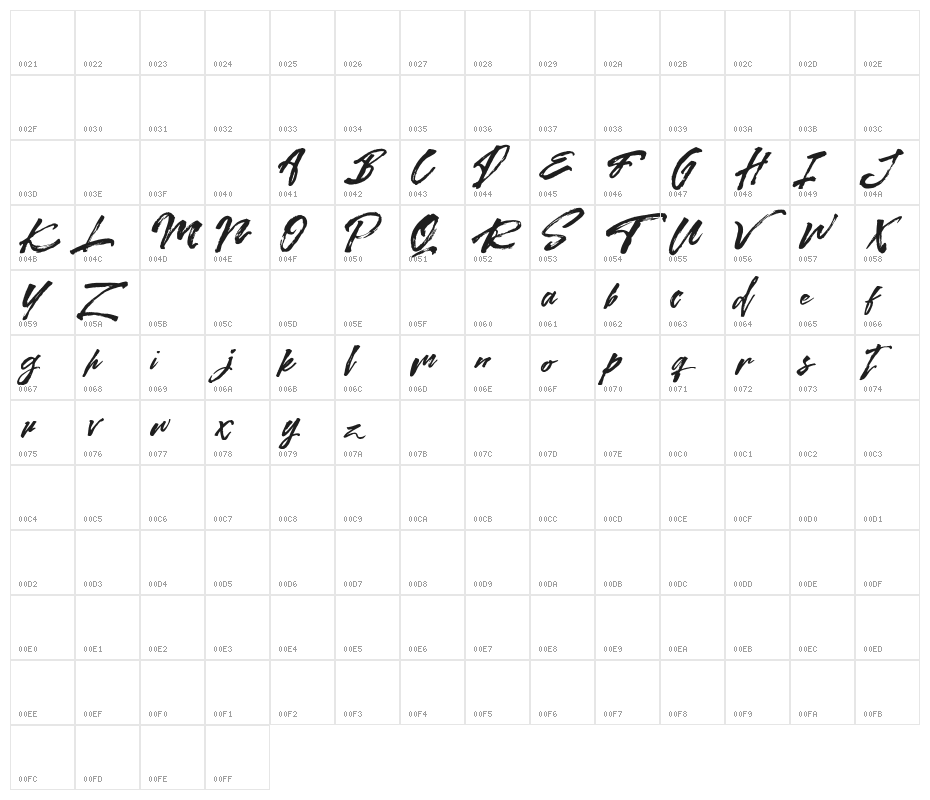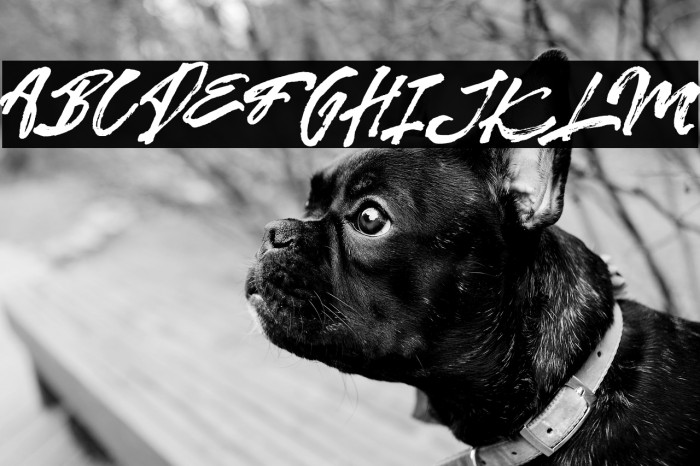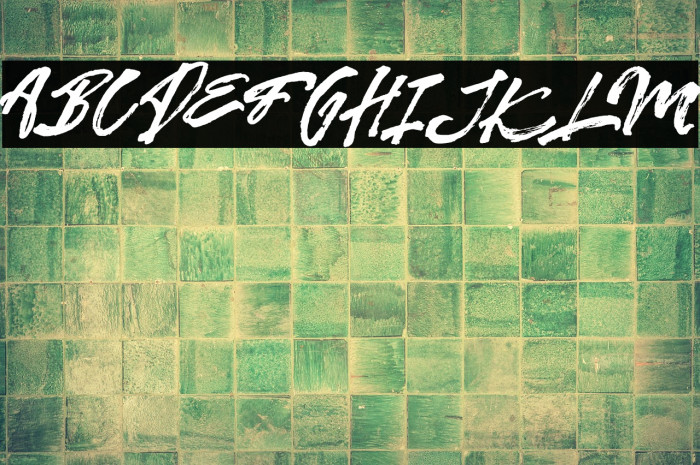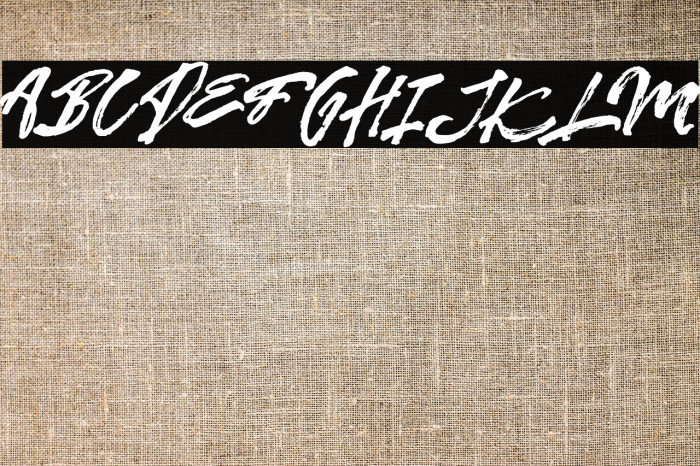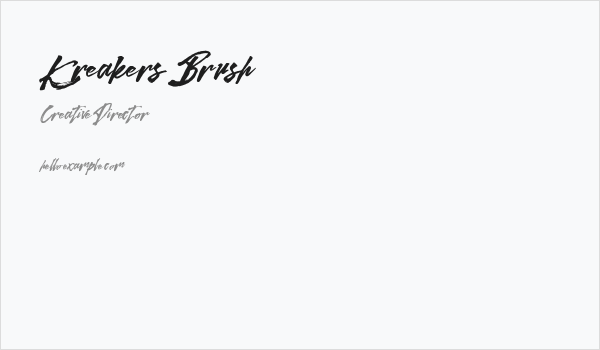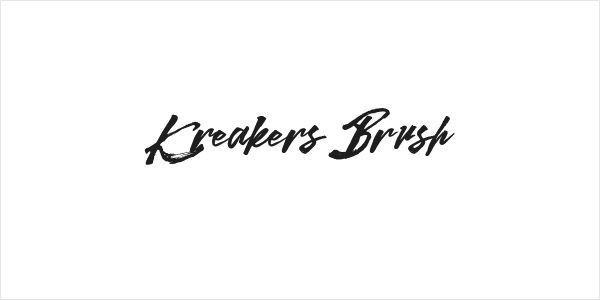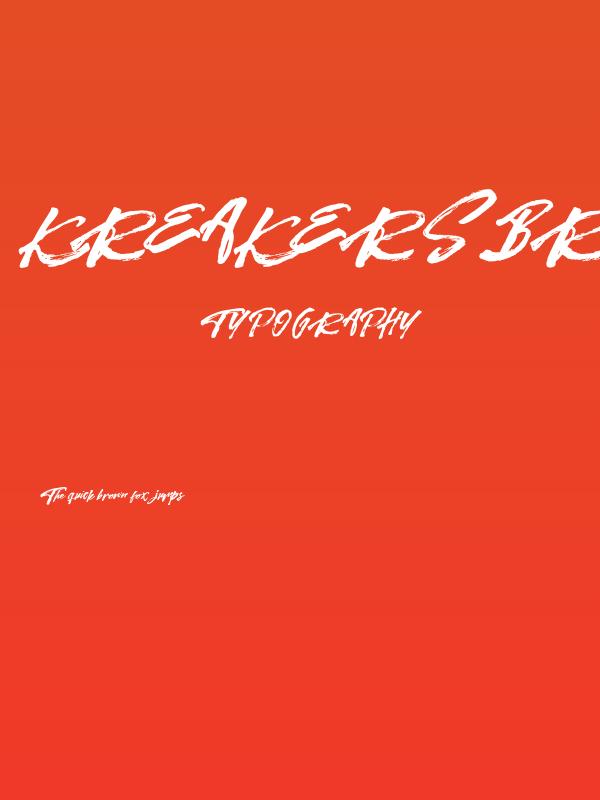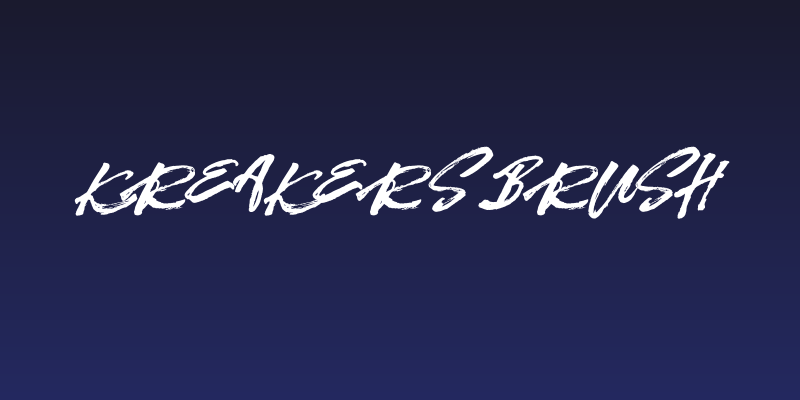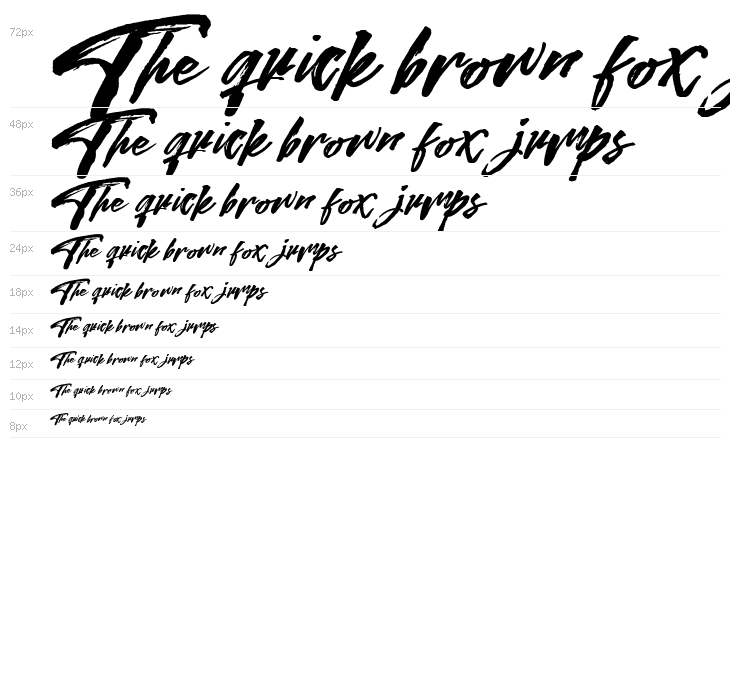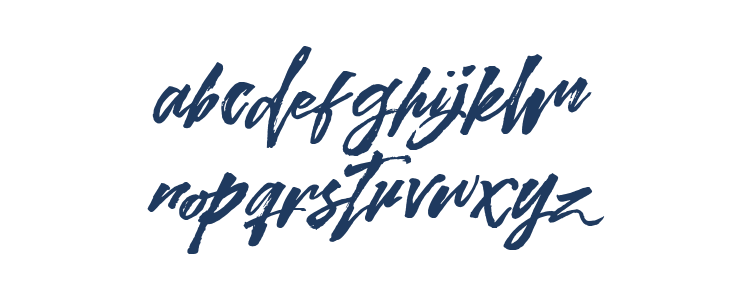
Kreakers Brush Font
Kreakers Brush Description
This font features a dynamic and expressive brush script style, characterized by its bold and energetic strokes. The letters exhibit a natural flow, with varying thickness that mimics the effect of a brush pen. The uppercase letters are slightly more structured, while the lowercase letters maintain a fluid and casual appearance. The overall design is artistic and lively, making it suitable for projects that require a personal and handcrafted touch. The font's texture adds a sense of movement and spontaneity, ideal for creative and informal applications.
| Proposed Projects | Ideal for branding, packaging, posters, and invitations where a personal, artistic touch is desired. |